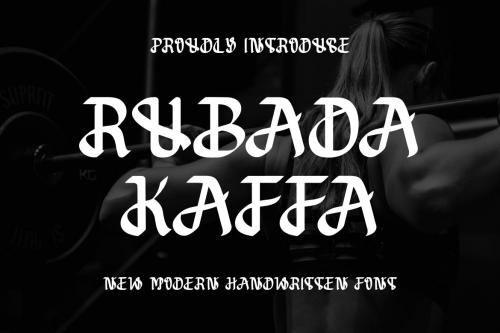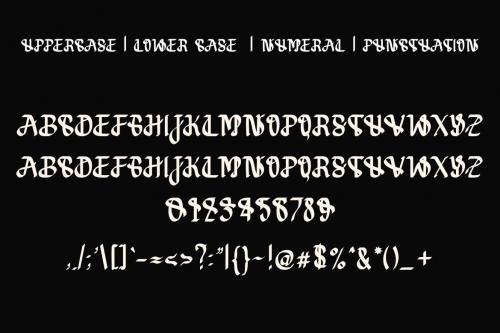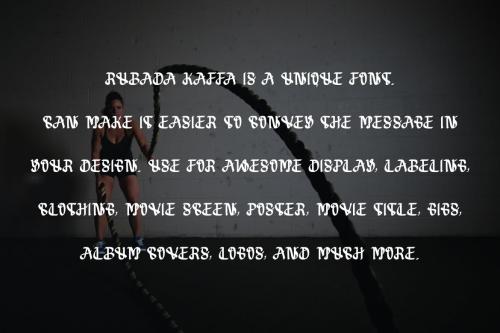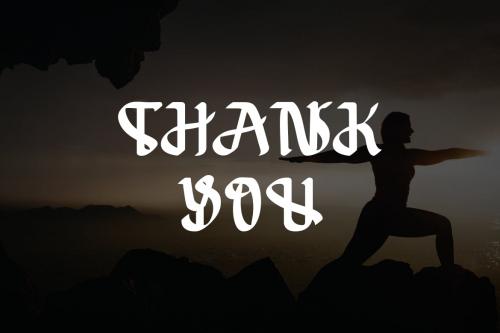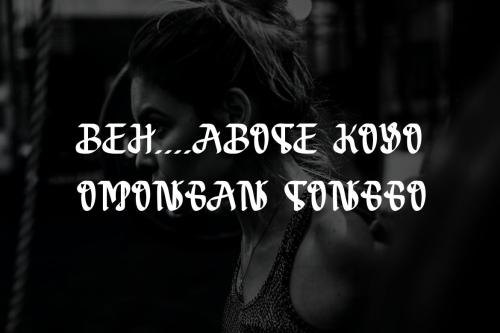
RUBADA KAFFA - Handwritten Font
**RUBADA KAFFA** is a unique font. Can make it easier to convey the message in your design.
Use for awesome display, labeling, clothing, movie sceen, poster, movie title, gigs, album covers, logos, and much more.
- Uppercase & lowercase letters
- Numbers & punctuation